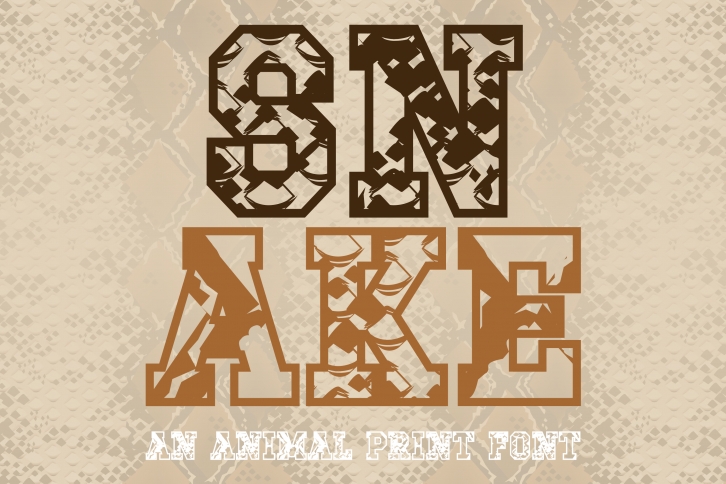
Snake is an incredibly cool font containing cute snake elements. Whether you use it for custom designs, DIY crafts, or just any creation that requires a lovely touch, this font will be an amazing choice.